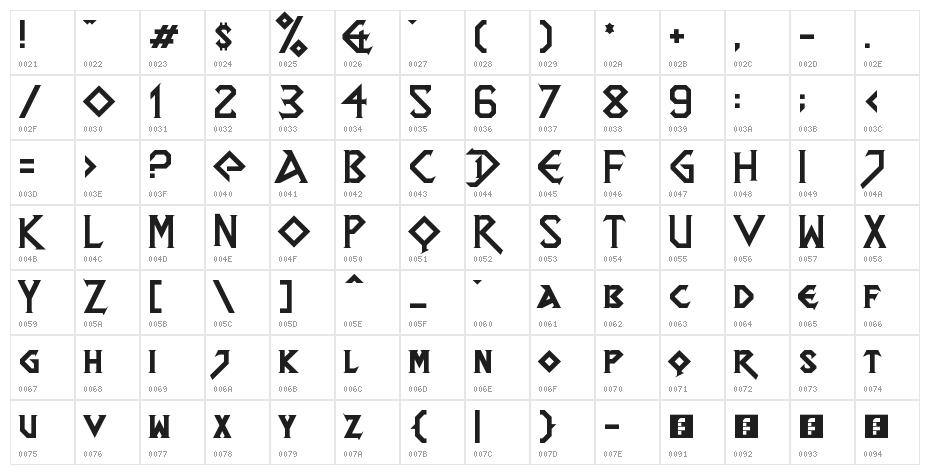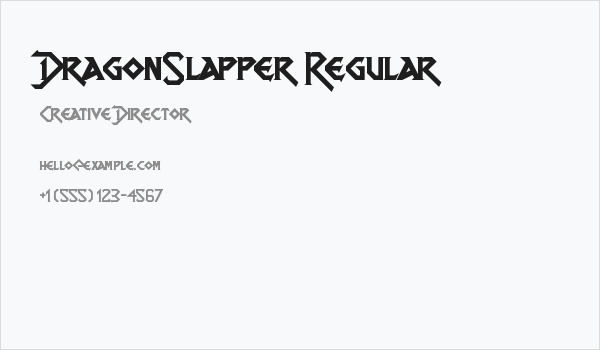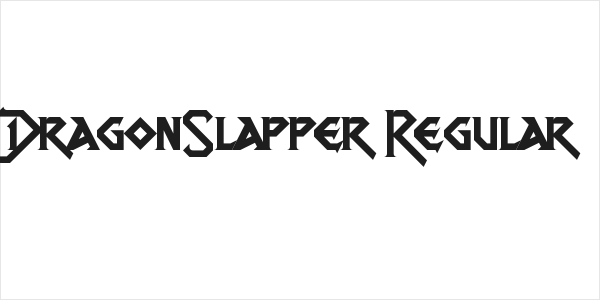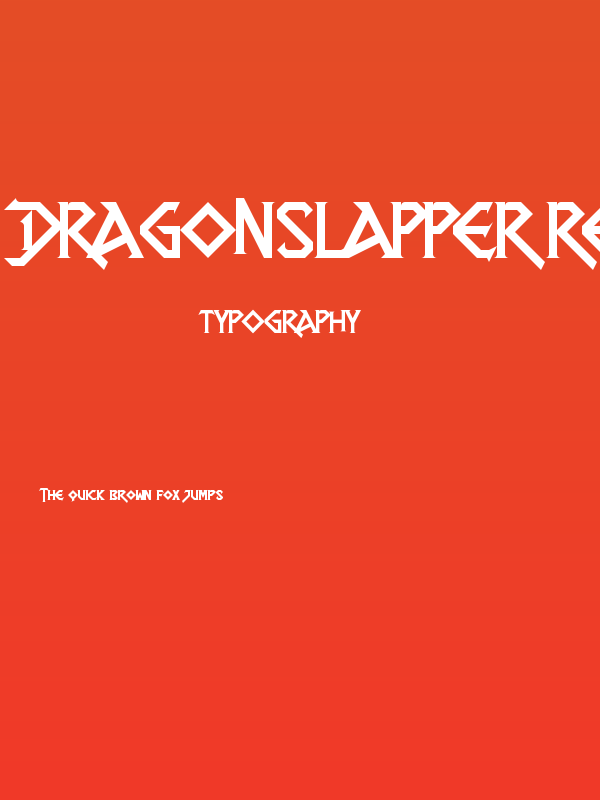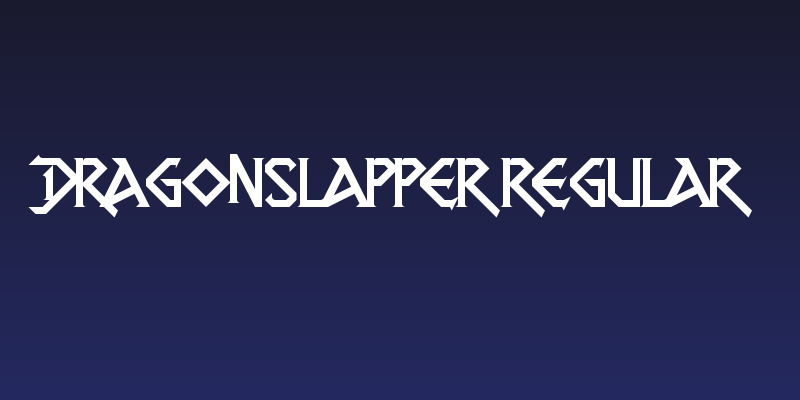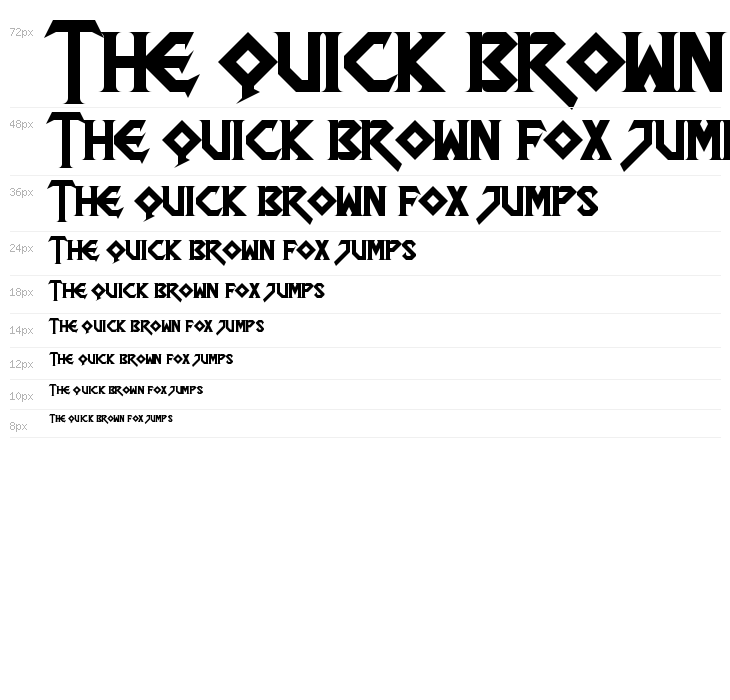
DragonSlapper Regular Font
DragonSlapper Regular Description
This font features a bold and angular design, reminiscent of medieval or fantasy themes. The characters are sharply defined with a distinct geometric style, incorporating pointed edges and dramatic angles. The uppercase and lowercase letters maintain a consistent aesthetic, with a strong emphasis on vertical and diagonal strokes. Numbers and special characters follow the same design principles, ensuring uniformity across all glyphs. The font's unique appearance makes it suitable for projects that require a touch of fantasy or a bold statement.
| Proposed Projects | Ideal for fantasy-themed posters, video game titles, book covers, and branding that requires a dramatic flair. |